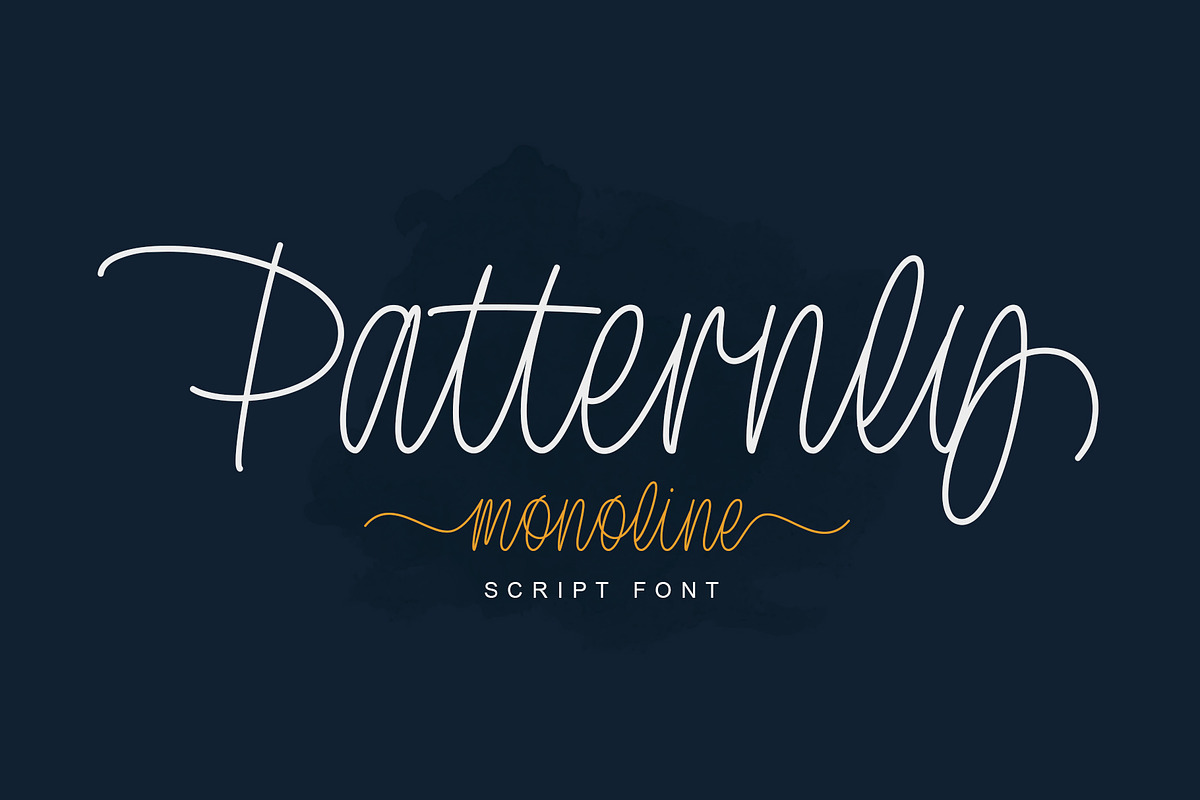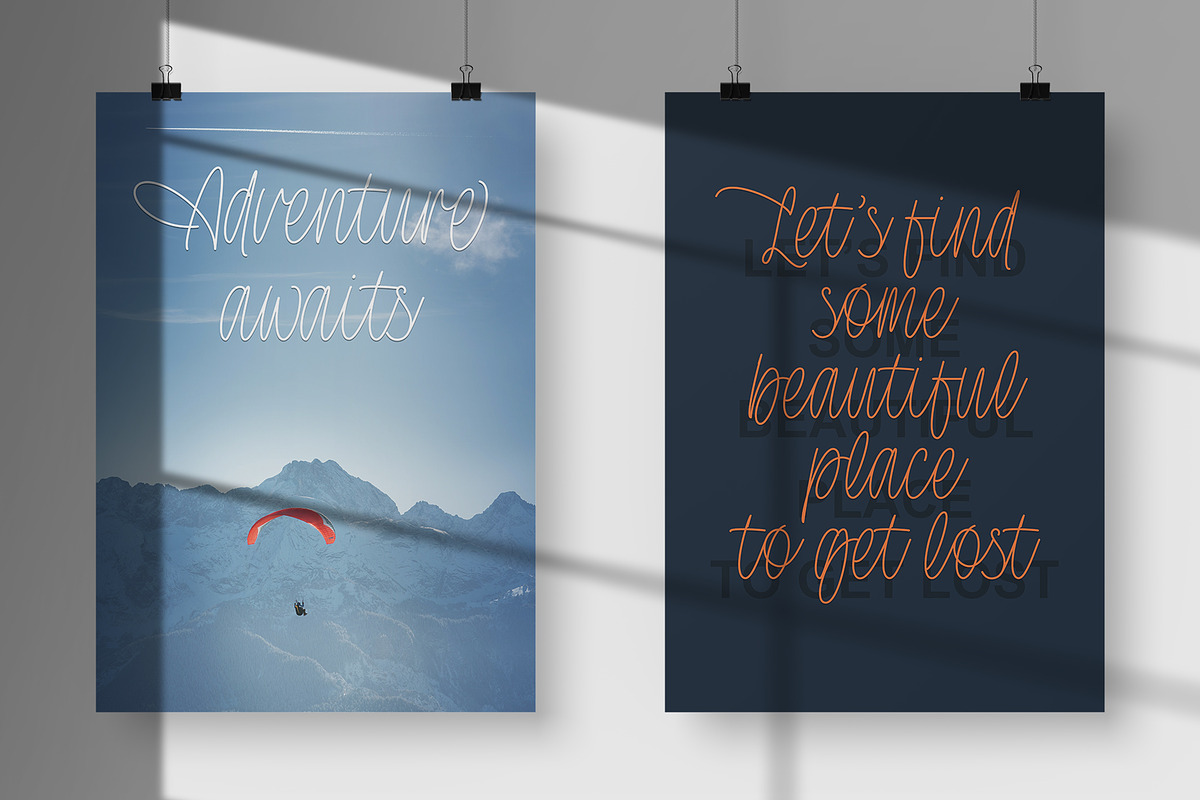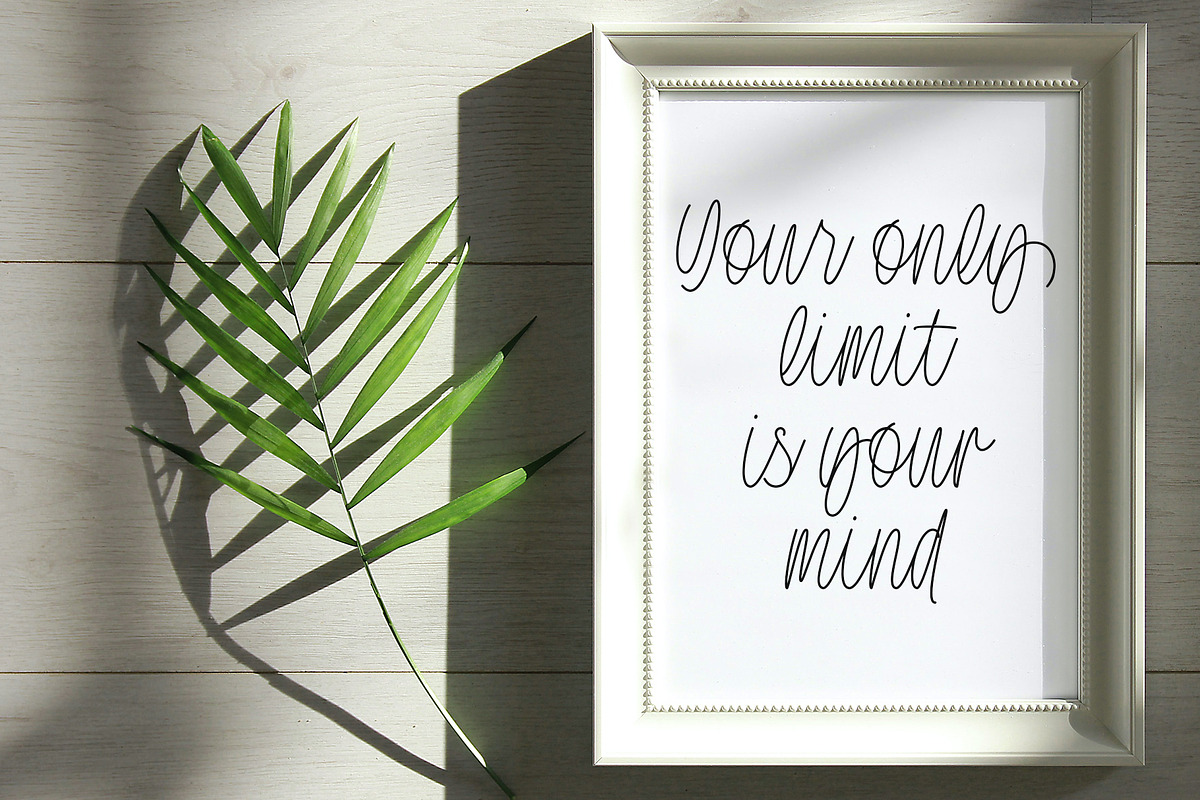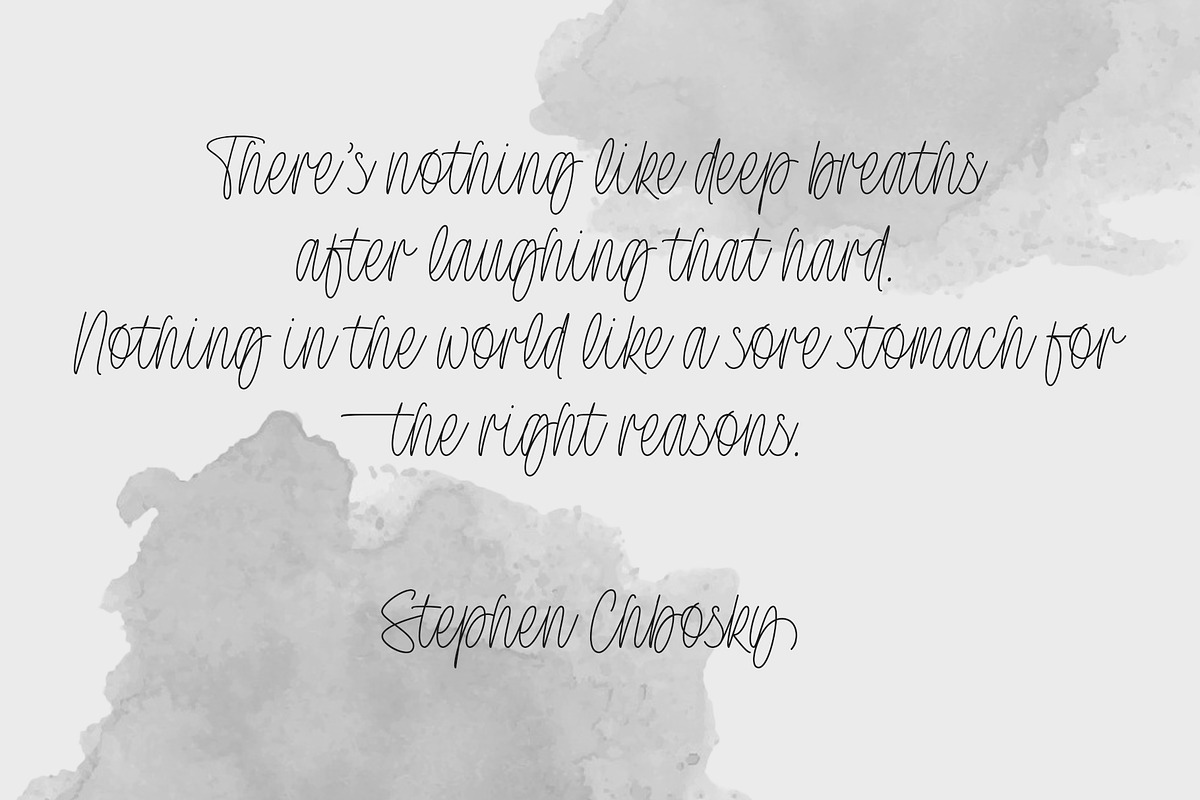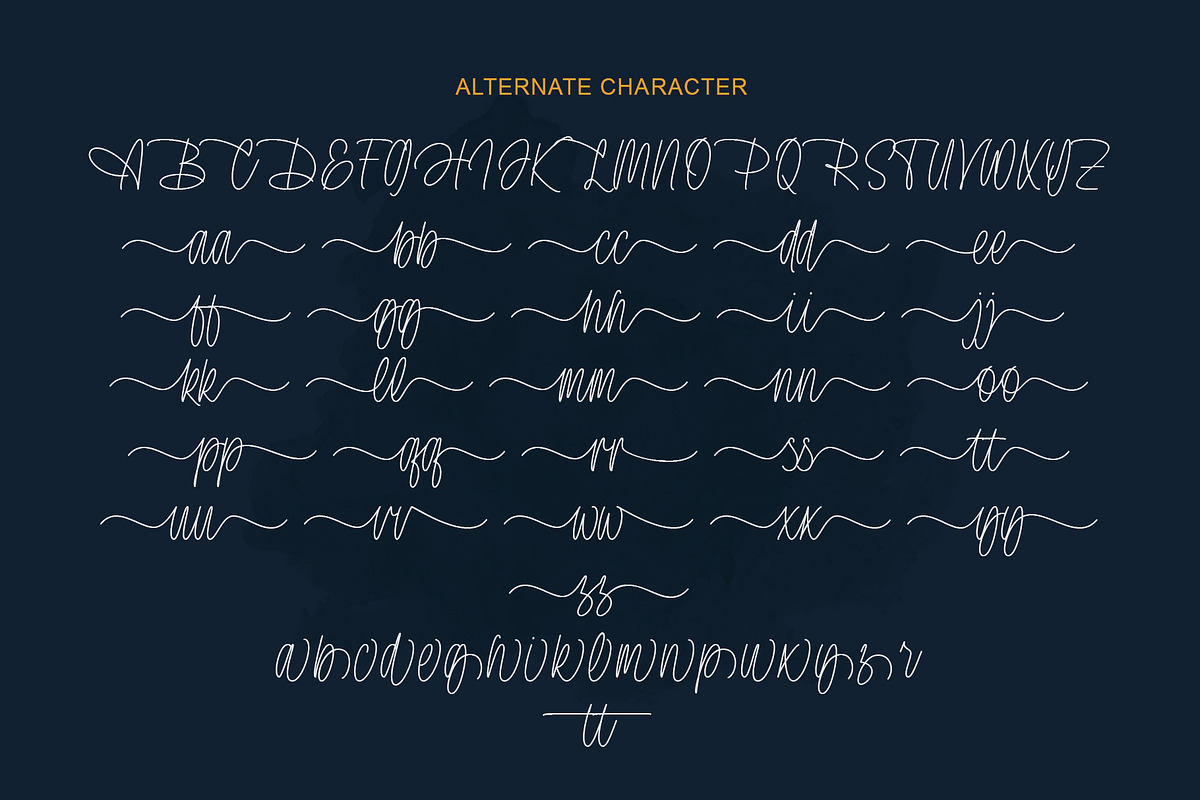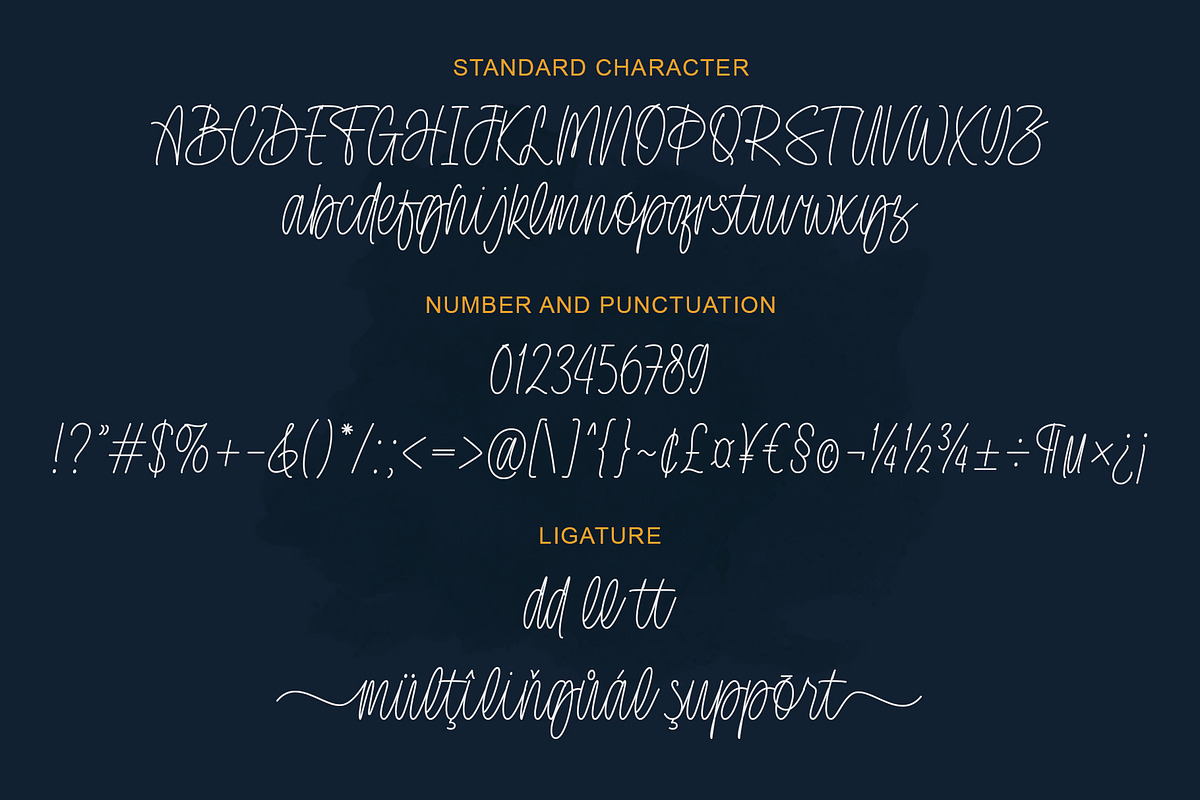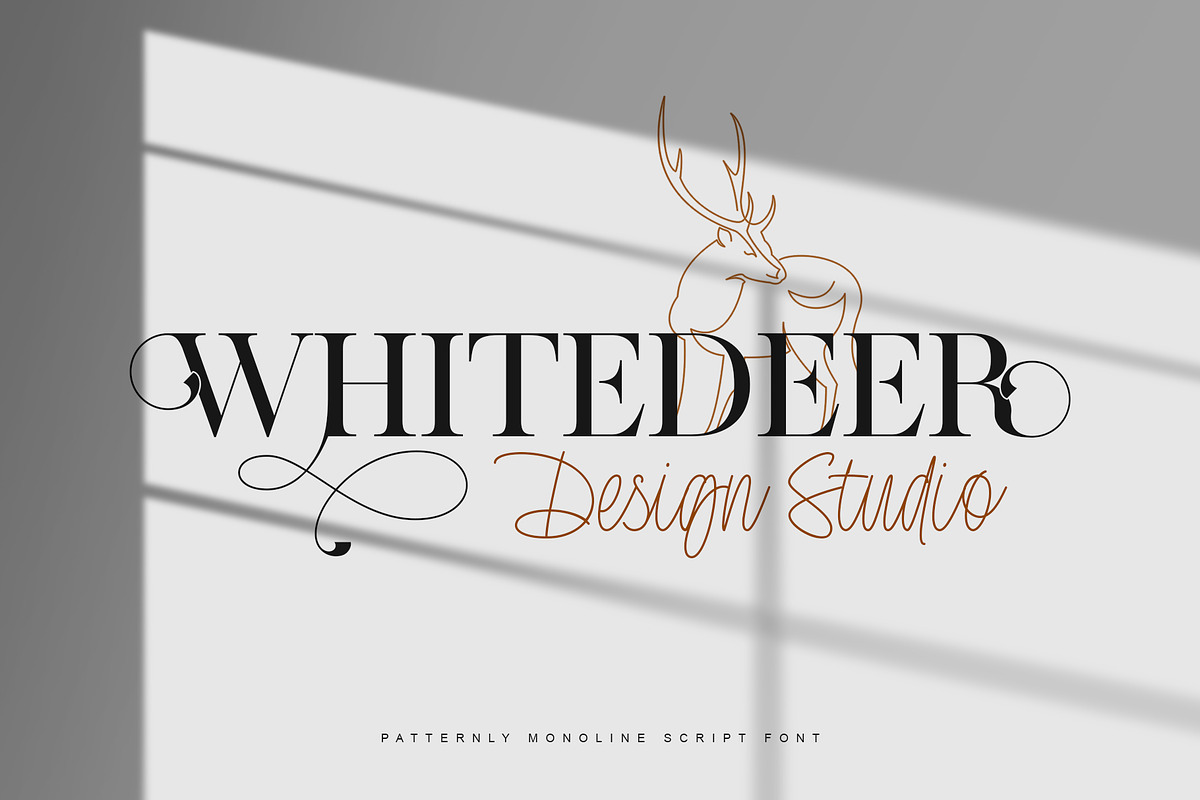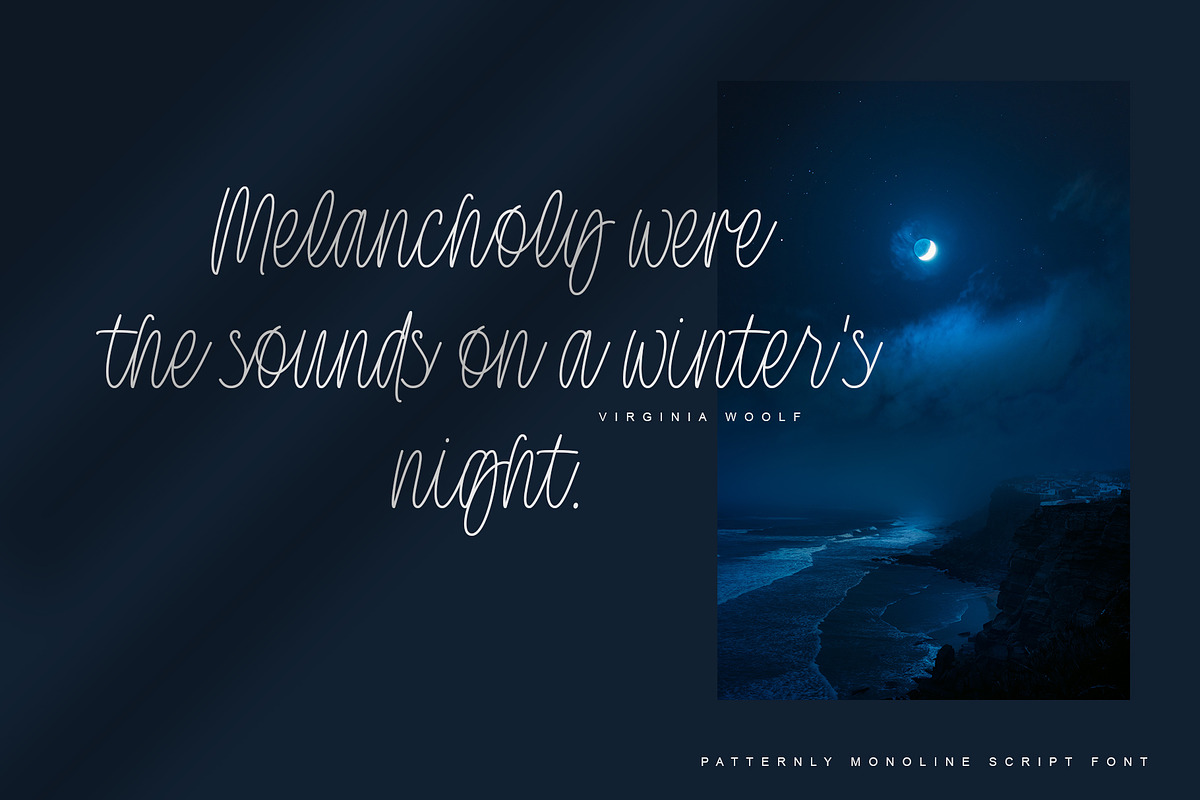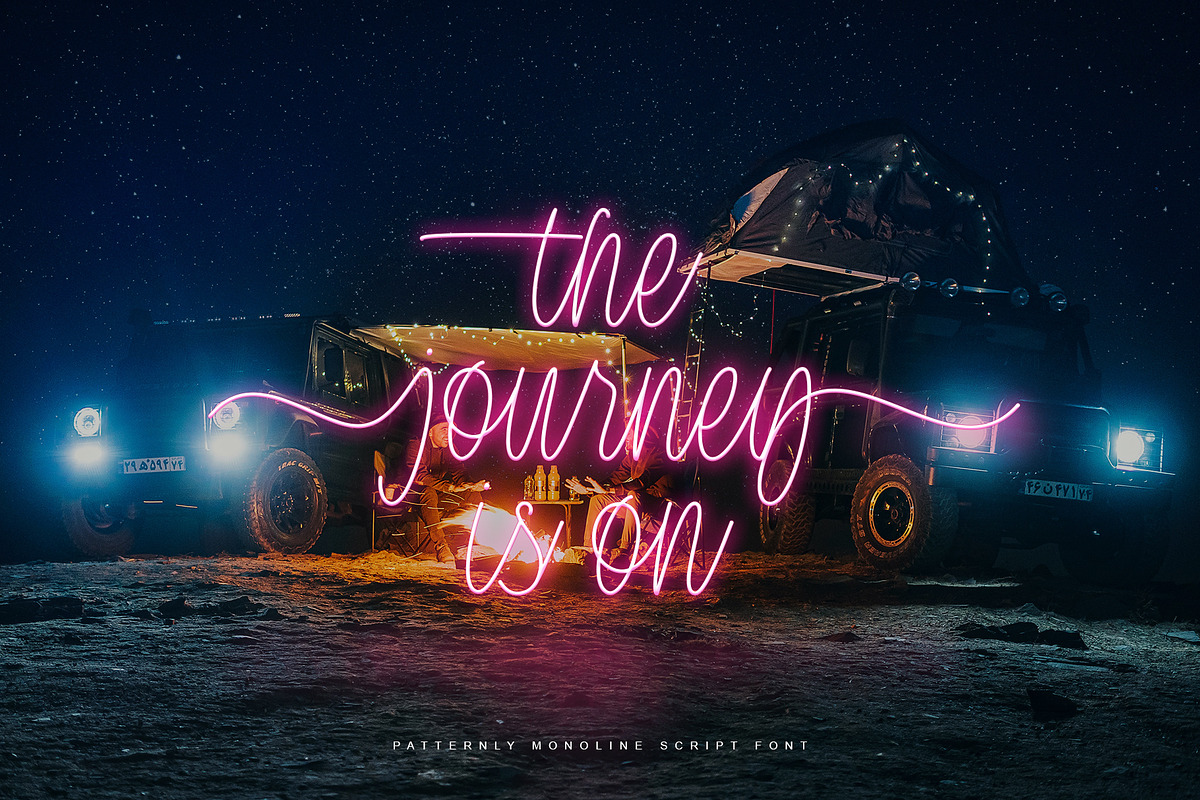
Patternly | Monoline Script
Patternly is a stylish handwritten script font in a monoline style. It’s perfect font for wedding invitations, stationery, photography, social media posts, product packaging, greeting cards, and much more!